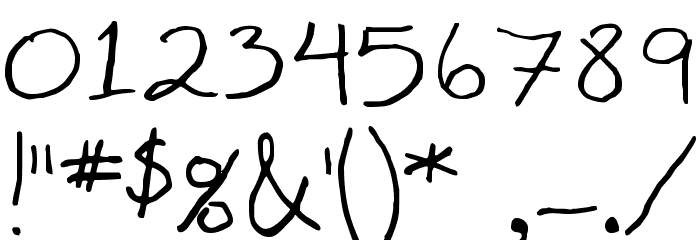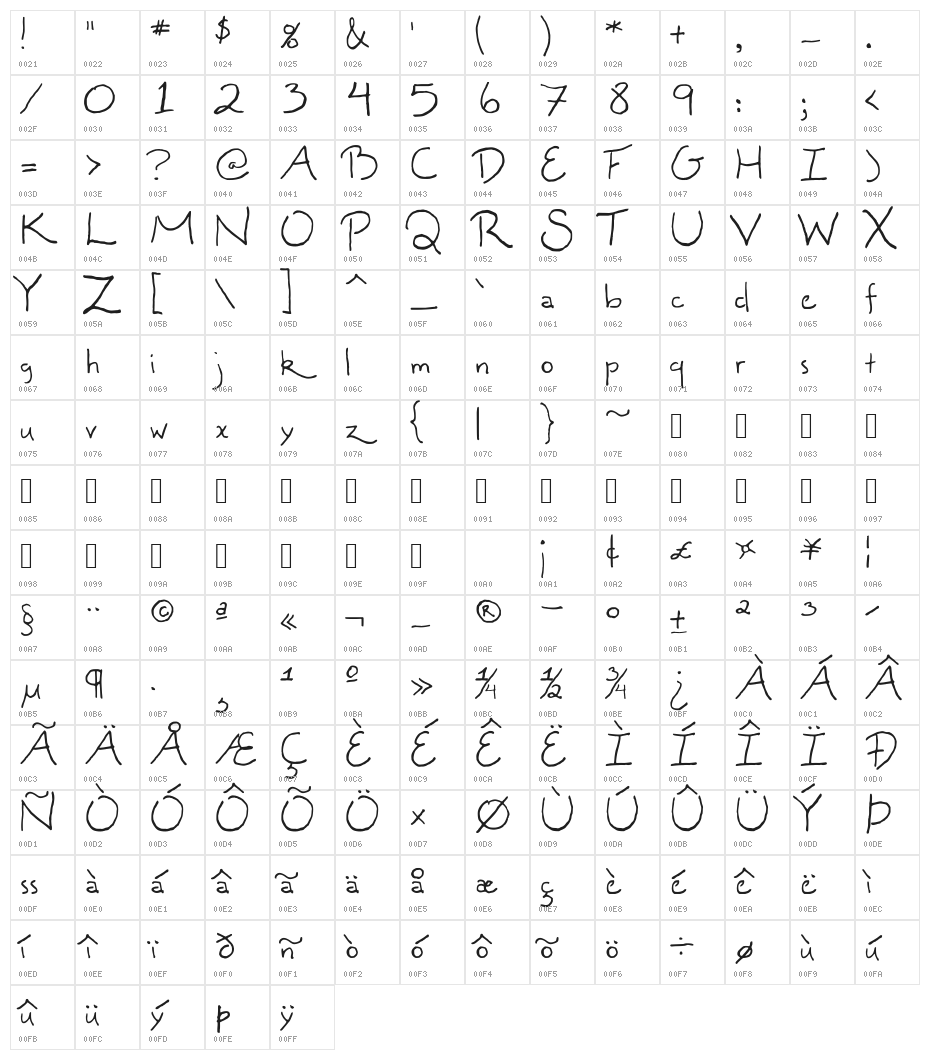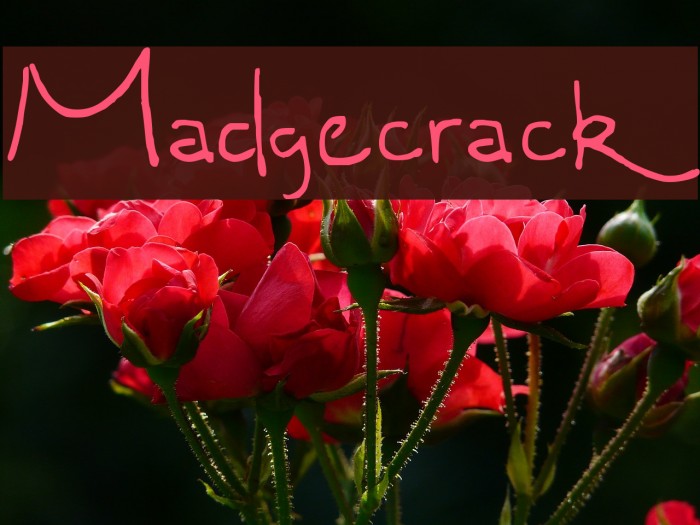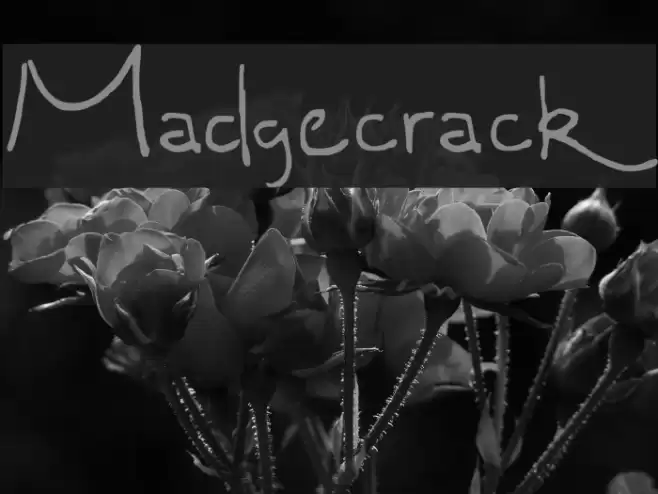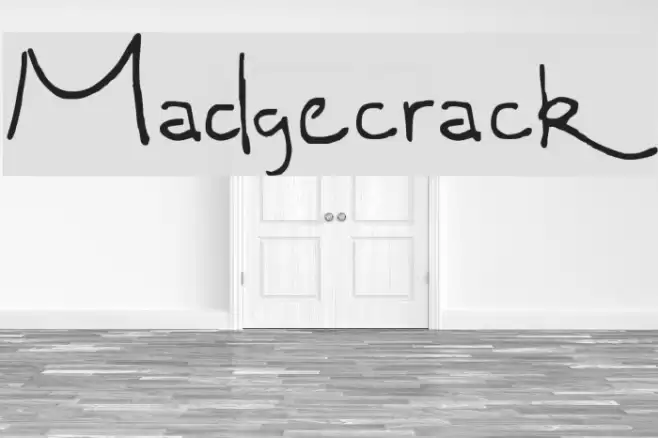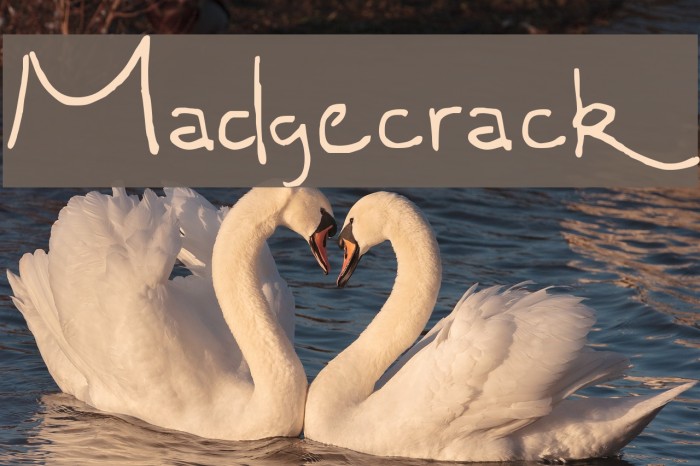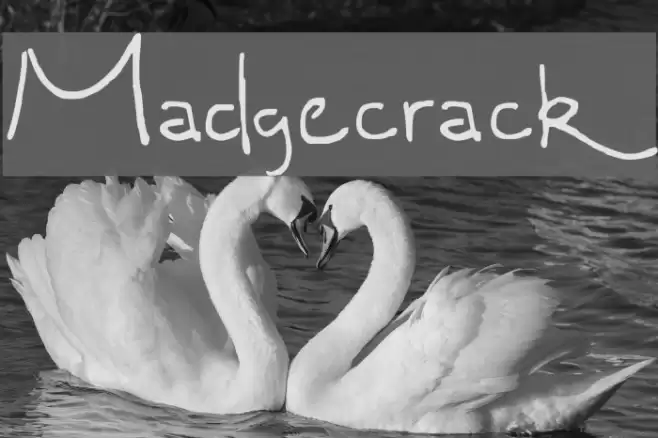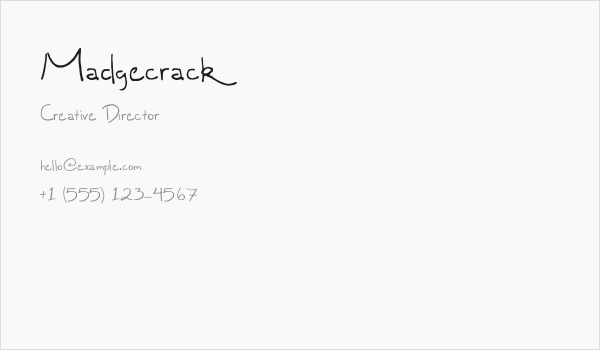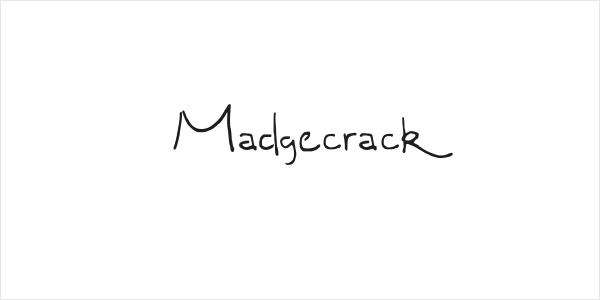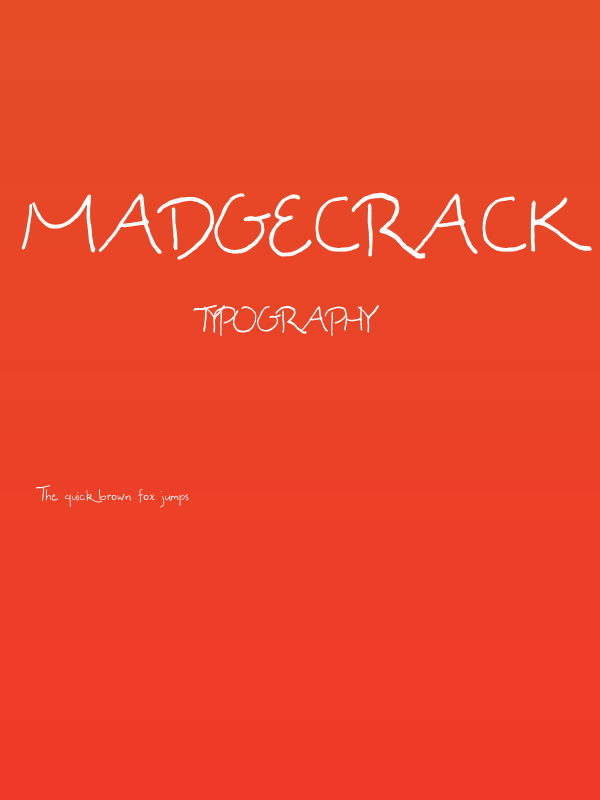
Madgecrack Font
Madgecrack Description
This font exhibits a playful and casual handwritten style, characterized by its irregular strokes and informal appearance. The letters are slightly slanted, giving it a dynamic and lively feel. The uppercase letters are bold and prominent, while the lowercase letters maintain a consistent flow with a touch of whimsy. The numbers are clear and legible, matching the overall style of the alphabet. Special characters are creatively designed, adding to the font's unique personality. The font's uneven lines and varying stroke widths contribute to its hand-drawn aesthetic, making it suitable for projects that require a personal touch.
| Proposed Projects | Ideal for greeting cards, personal blogs, children's books, and creative branding. |